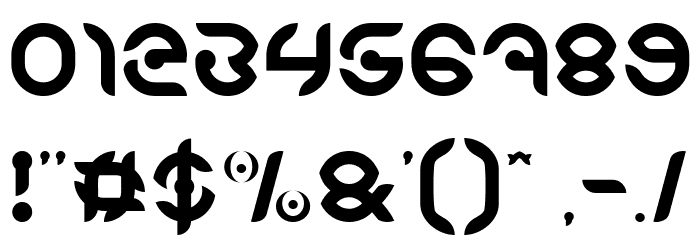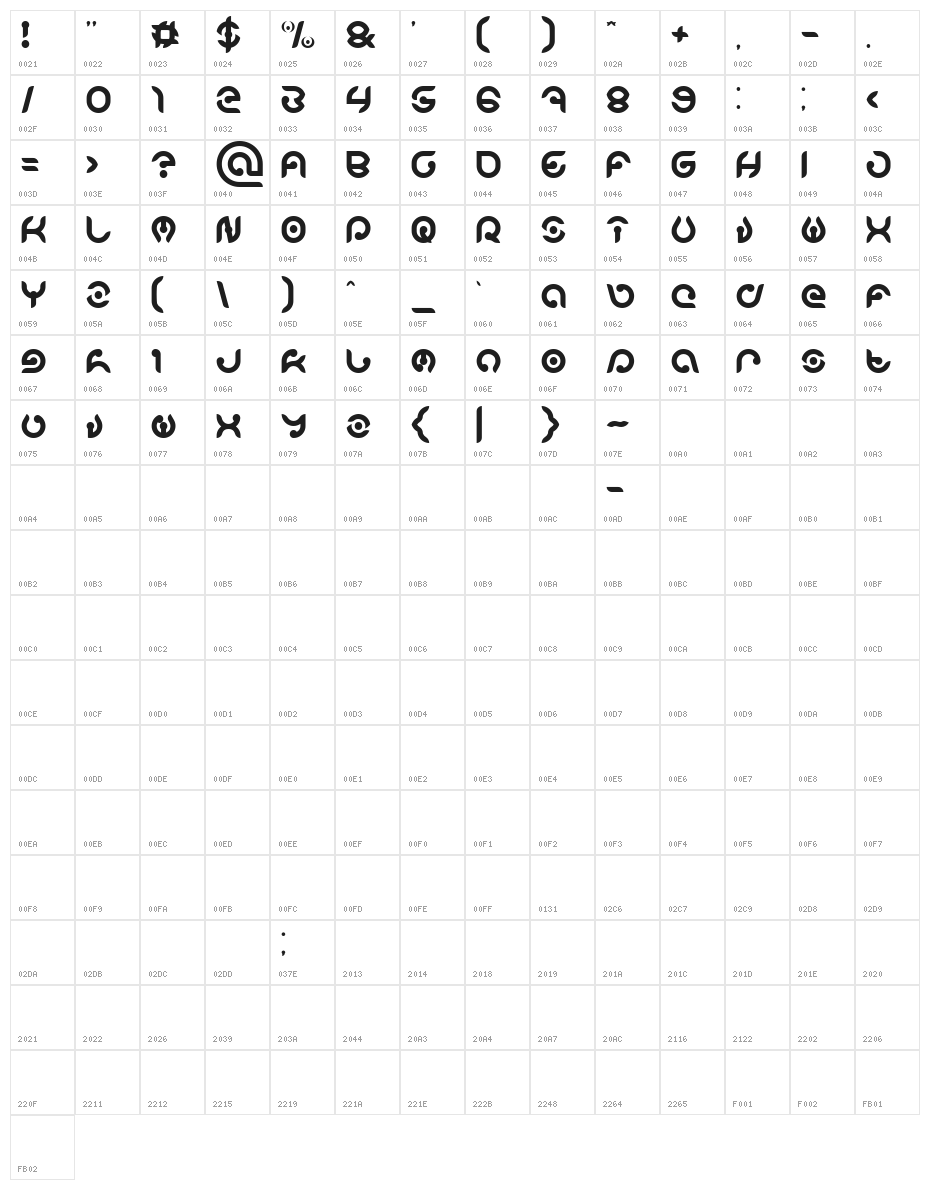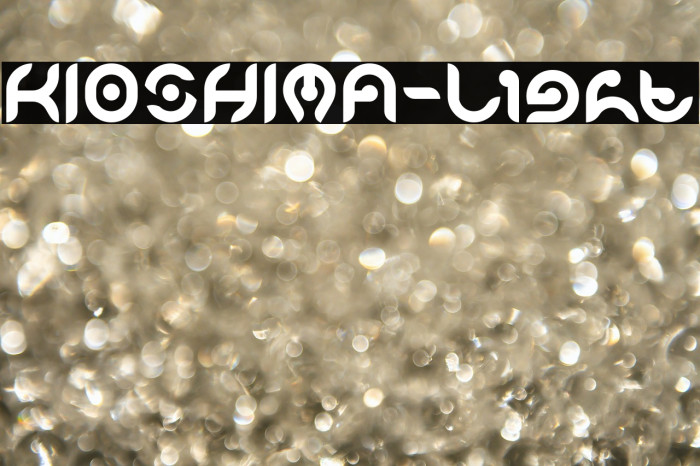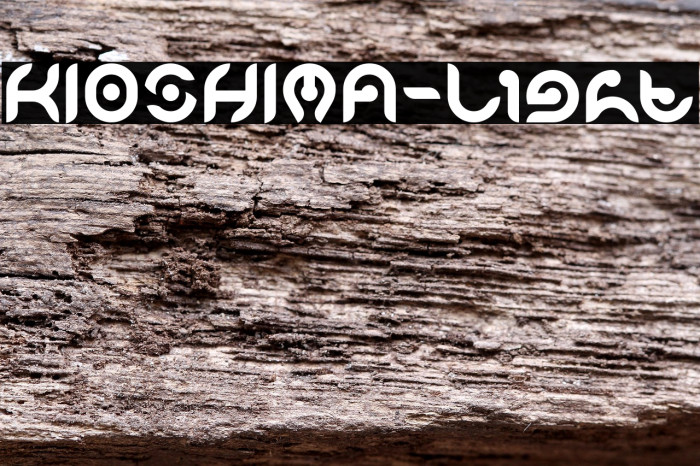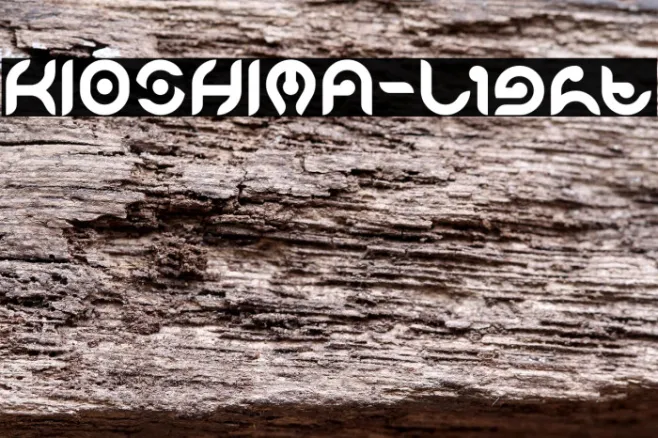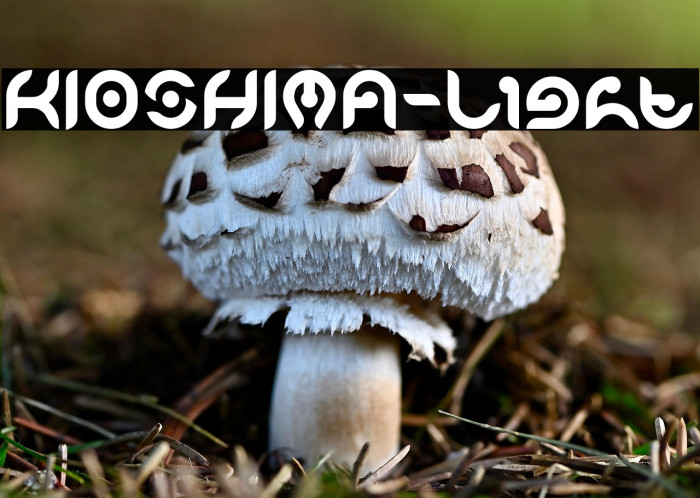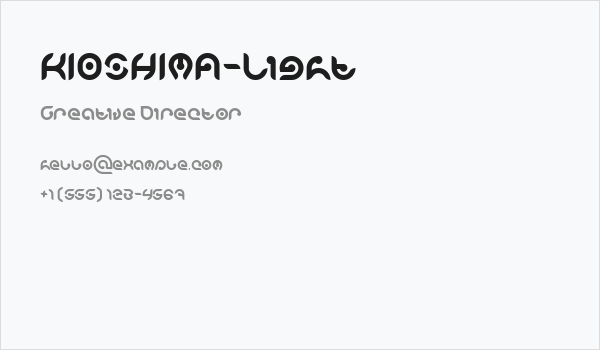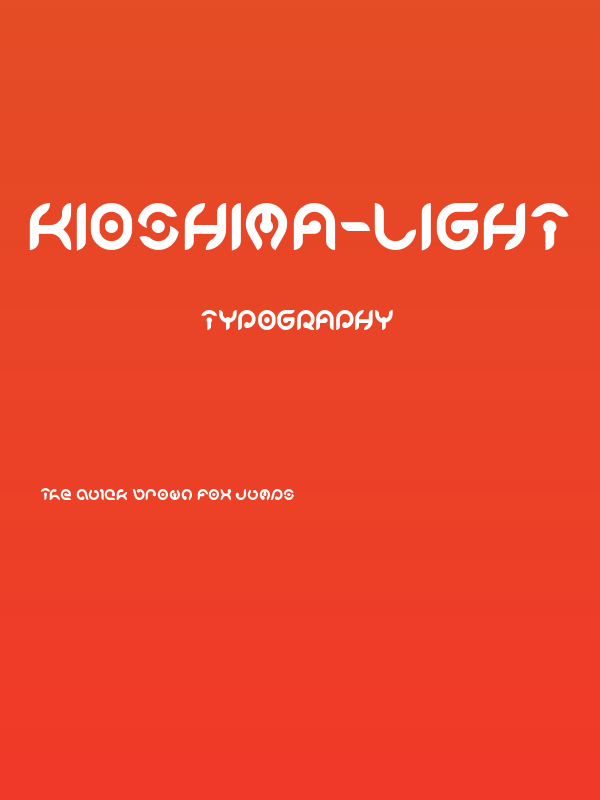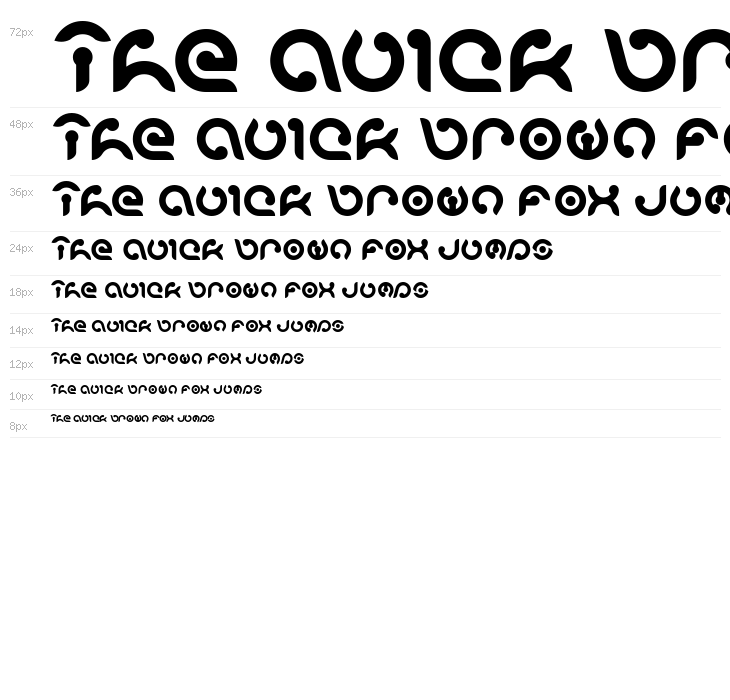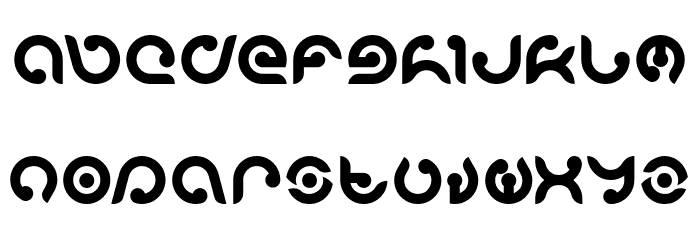
KIOSHIMA-Light Font
KIOSHIMA-Light Description
This font features a futuristic and geometric design, characterized by its bold and rounded letterforms. The characters are constructed with thick strokes and circular elements, giving it a unique and modern appearance. The uppercase and lowercase letters maintain a consistent style, with smooth curves and a distinct lack of sharp angles. Numbers and special characters follow the same design principles, ensuring uniformity across all glyphs. The overall look is both playful and sophisticated, making it suitable for creative and contemporary projects.
Proposed ProjectsIdeal for sci-fi themed designs, modern branding, digital art, and innovative product packaging.